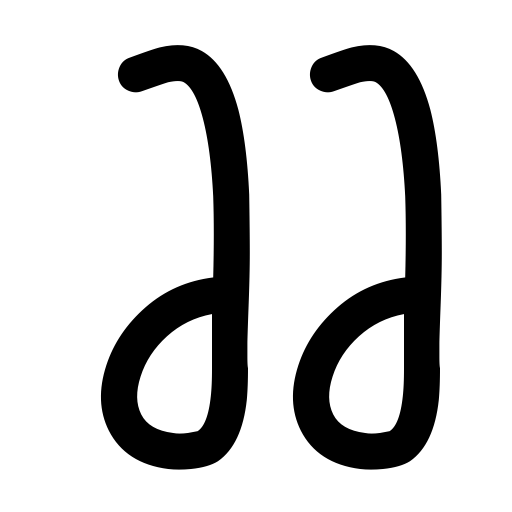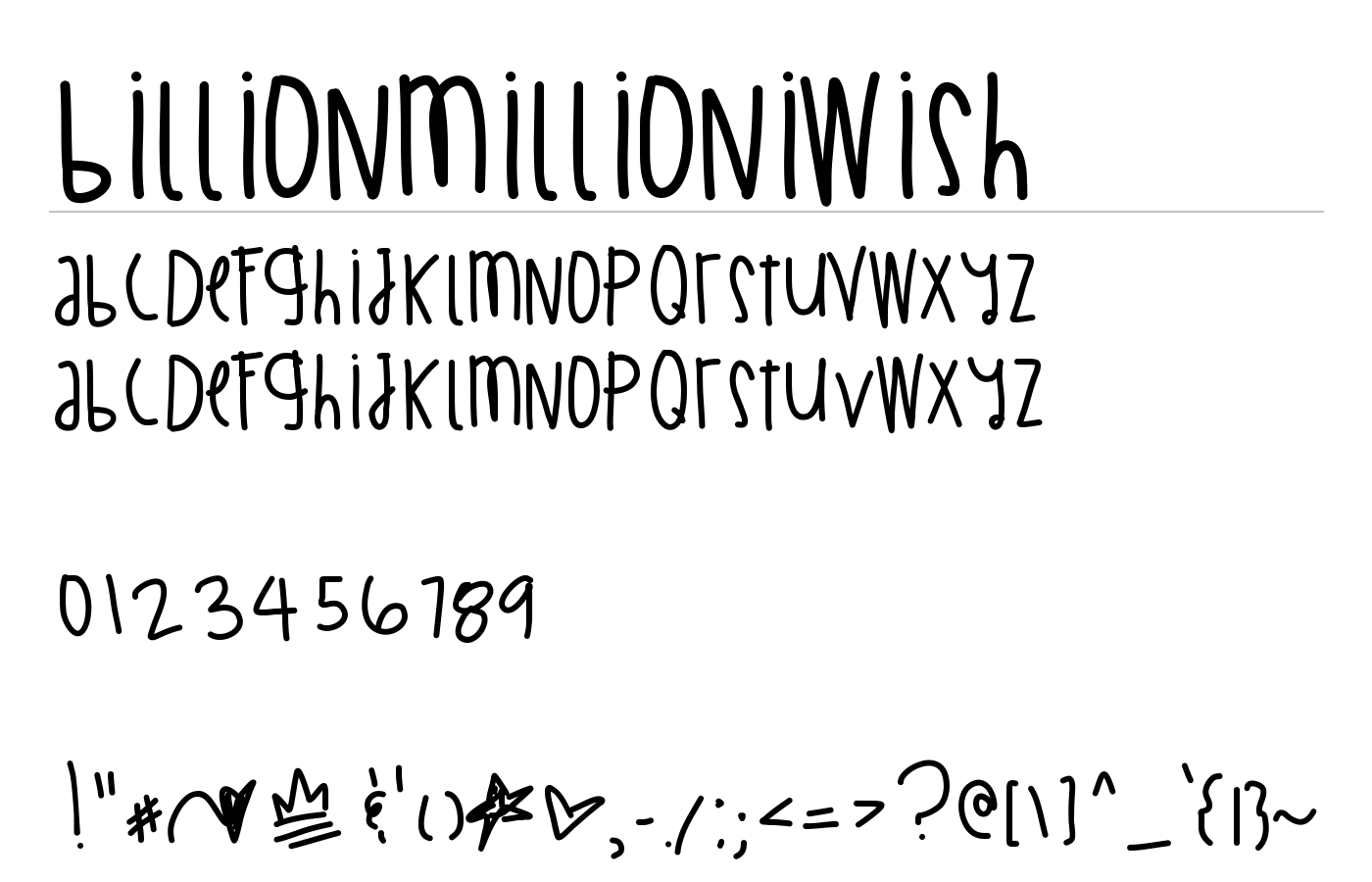
BillionMillionIWish is a playful, hand-drawn sans serif font with a whimsical and casual feel. Its tall, narrow letterforms and irregular strokes lend a friendly, approachable vibe, making it ideal for creative projects, children’s materials, or informal branding that wants to convey charm and personality. This font works best in headlines, invitations, and any design that benefits from a unique, handcrafted look.
BillionMillionIWish Font
About BillionMillionIWish Font